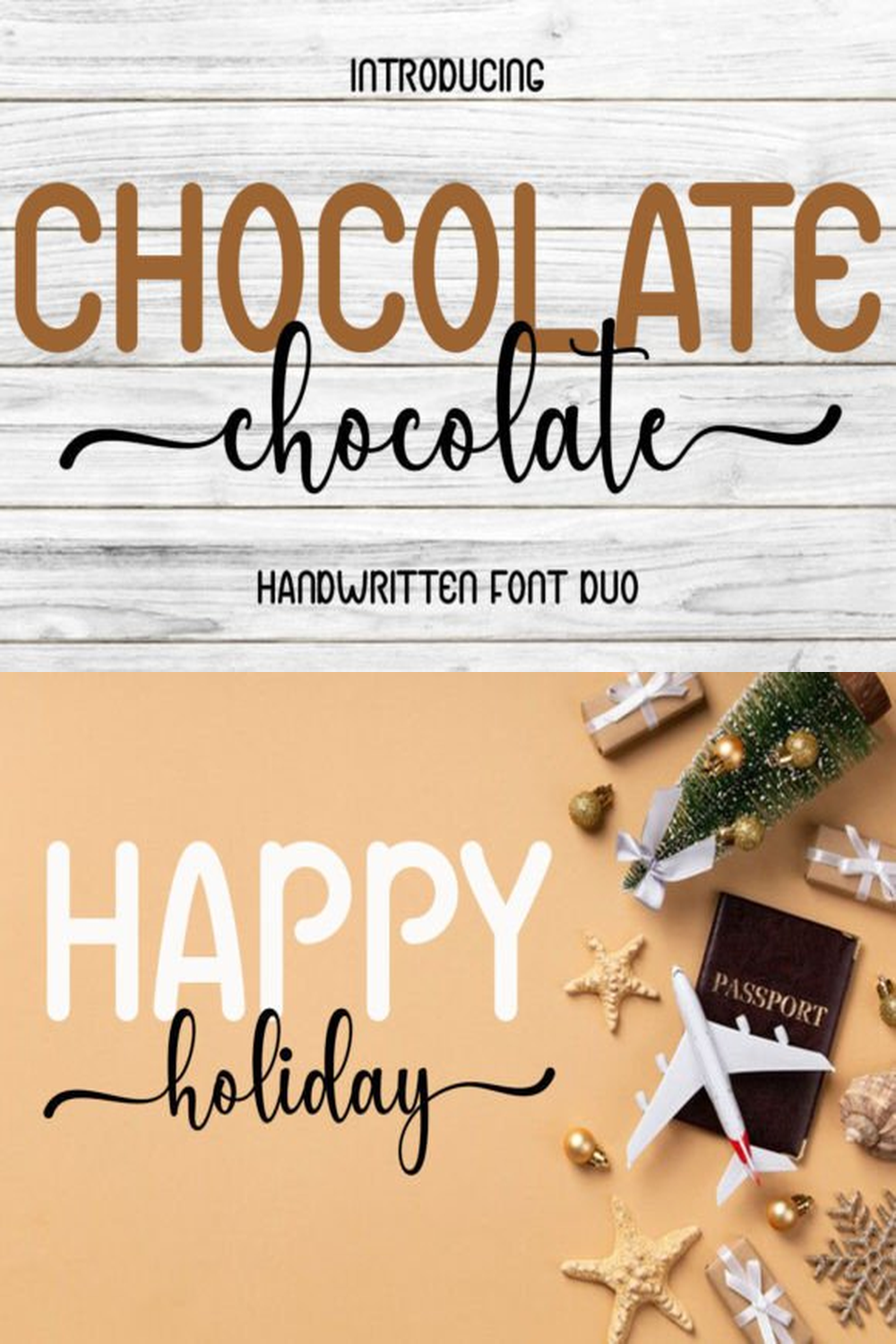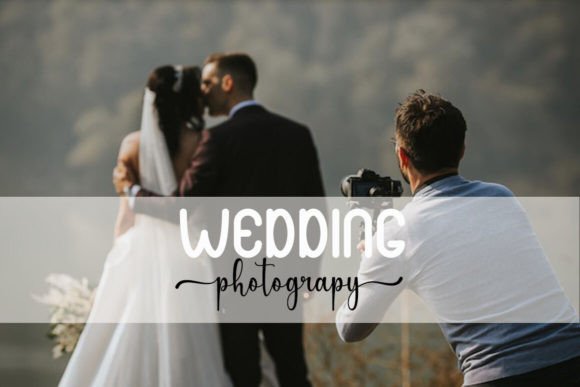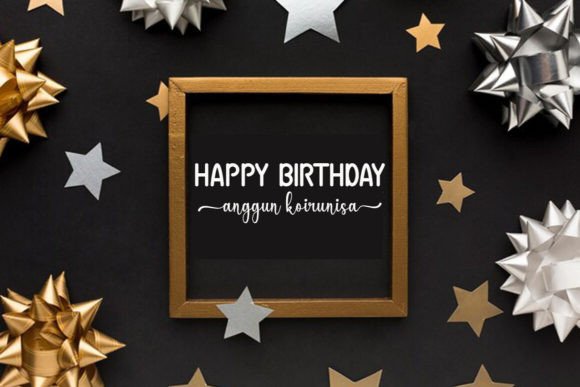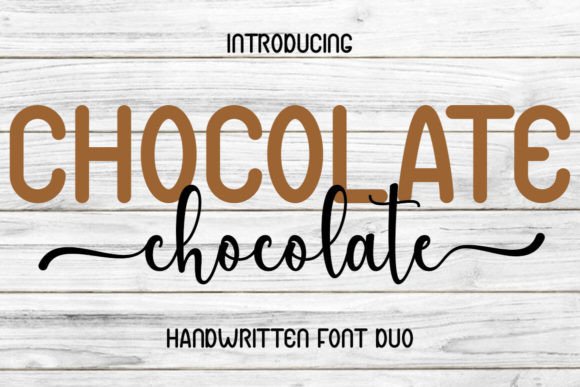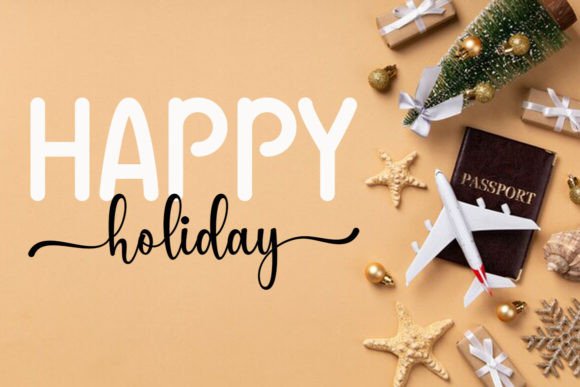
Chocolate Duo Font
About the Chocolate Duo Font
The Chocolate Duo Font is here to transform your projects with its distinctive character and style. Chocolate is a lovely handwritten font duo featuring well-rounded characters and a stylish vibe. Get inspired by its light and approachable style, and use it in your favorite creations. This font is PUA encoded which means you can access all of the glyphs and swashes with ease!